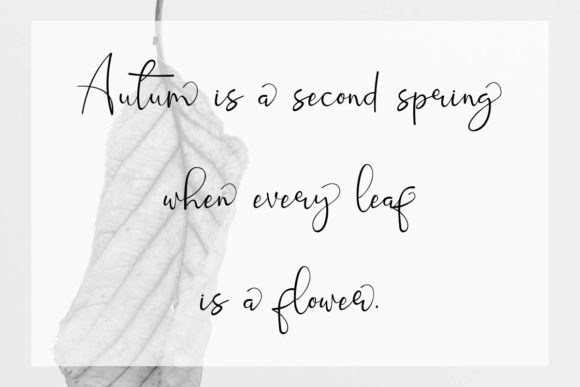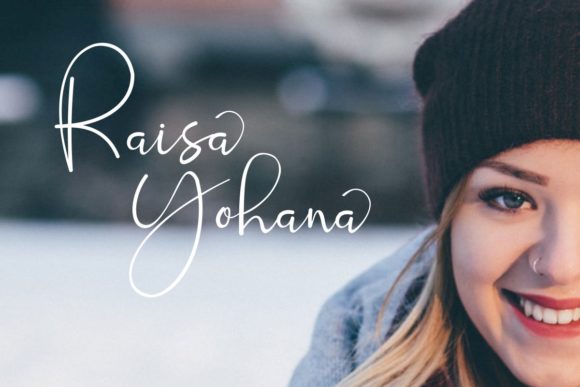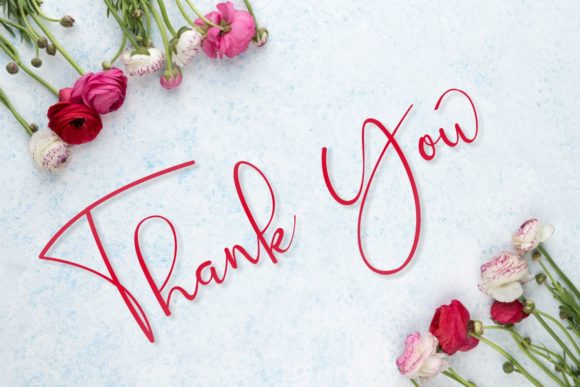
Discover the Elegance of Betty Pansteenly Font: Elevate Your Designs with This Exquisite Handwritten Font
Are you on the hunt for a font that exudes elegance, sophistication, and a touch of modern flair? Look no further than the Betty Pansteenly Font. This beautifully crafted handwritten font is designed to capture the hearts of designers and crafters alike, making it a perfect addition to your typographic arsenal.
The Essence of Betty Pansteenly Font
Betty Pansteenly Font is a masterclass in blending traditional calligraphic influences with contemporary design sensibilities. The result is a font that feels both classic and fresh, suitable for a wide range of projects, from wedding invitations and branding materials to packaging and digital content.
Key Features of Betty Pansteenly Font
• PUA Encoding: One of the standout features of Betty Pansteenly Font is its PUA (Private Use Area) encoding. This means that accessing the font’s extensive range of glyphs and swashes is incredibly straightforward, giving you the flexibility to create unique and personalized designs.
• Varying Baseline: The font’s varying baseline adds a touch of organic, handwritten charm to your text, making it feel more approachable and engaging.
• Smooth Lines: The smooth, flowing lines of Betty Pansteenly Font contribute to its elegant appearance, ensuring that your designs look refined and sophisticated.
• Gorgeous Glyphs and Stunning Alternates: With a rich collection of glyphs and alternates, you have the creative freedom to experiment with different styles and variations, ensuring your designs stand out from the crowd.
Why Choose Betty Pansteenly Font?
There are countless fonts available to designers and crafters, but Betty Pansteenly Font stands out for several reasons:
• Versatility: Its unique blend of classic and modern elements makes it suitable for a wide range of projects, from luxury branding to more casual, creative endeavors.
• Ease of Use: Thanks to its PUA encoding, you can easily access and incorporate the font’s various features into your designs, saving you time and effort.
• Aesthetic Appeal: The font’s inherent beauty and elegance can elevate even the simplest designs, making them more visually appealing and engaging.
Applications of Betty Pansteenly Font
The versatility of Betty Pansteenly Font means it can be used in a multitude of applications, including:
• Wedding and Event Stationery: Create bespoke wedding invitations, save-the-date cards, and other event materials that exude romance and sophistication.
• Branding and Packaging: Use the font to develop a distinctive brand identity that stands out in the marketplace, or to design packaging that reflects your brand’s personality.
• Digital Content: Enhance your website, blog, or social media graphics with the elegant touch of Betty Pansteenly Font, making your digital content more engaging and professional.
Betty Pansteenly Font is more than just a typeface; it’s a design tool that can transform your projects with its elegance, versatility, and creative potential. Whether you’re a professional designer or a crafter looking to add a personal touch to your work, this exquisite handwritten font is sure to become a favorite in your collection. With its beautiful calligraphic influences, modern freshness, and user-friendly features like PUA encoding, it’s the perfect choice for anyone looking to elevate their designs to new heights.